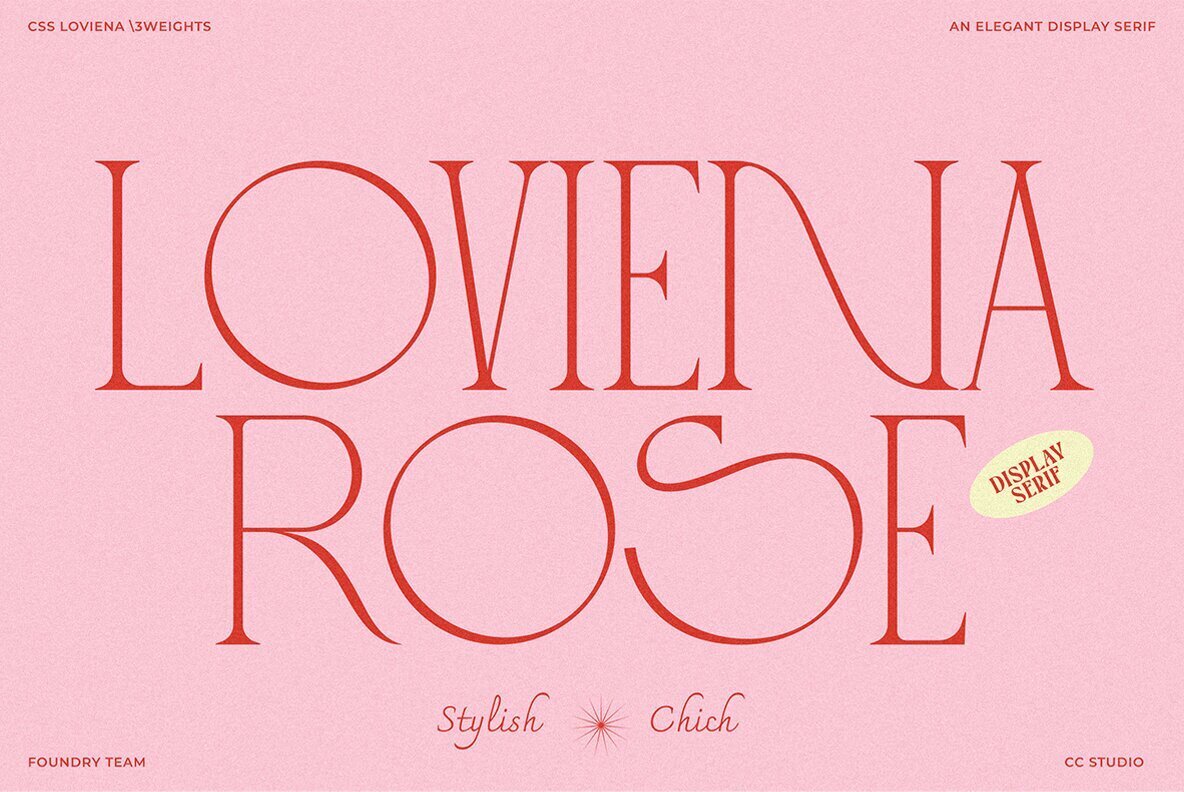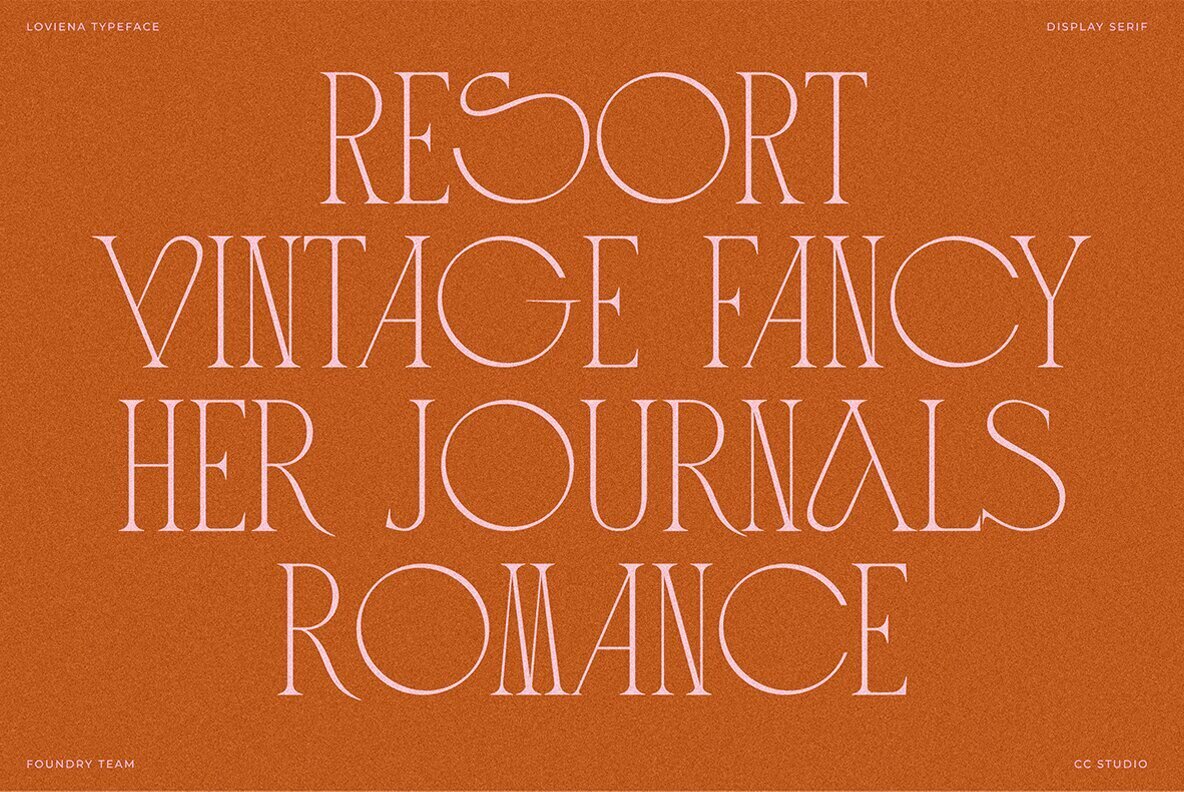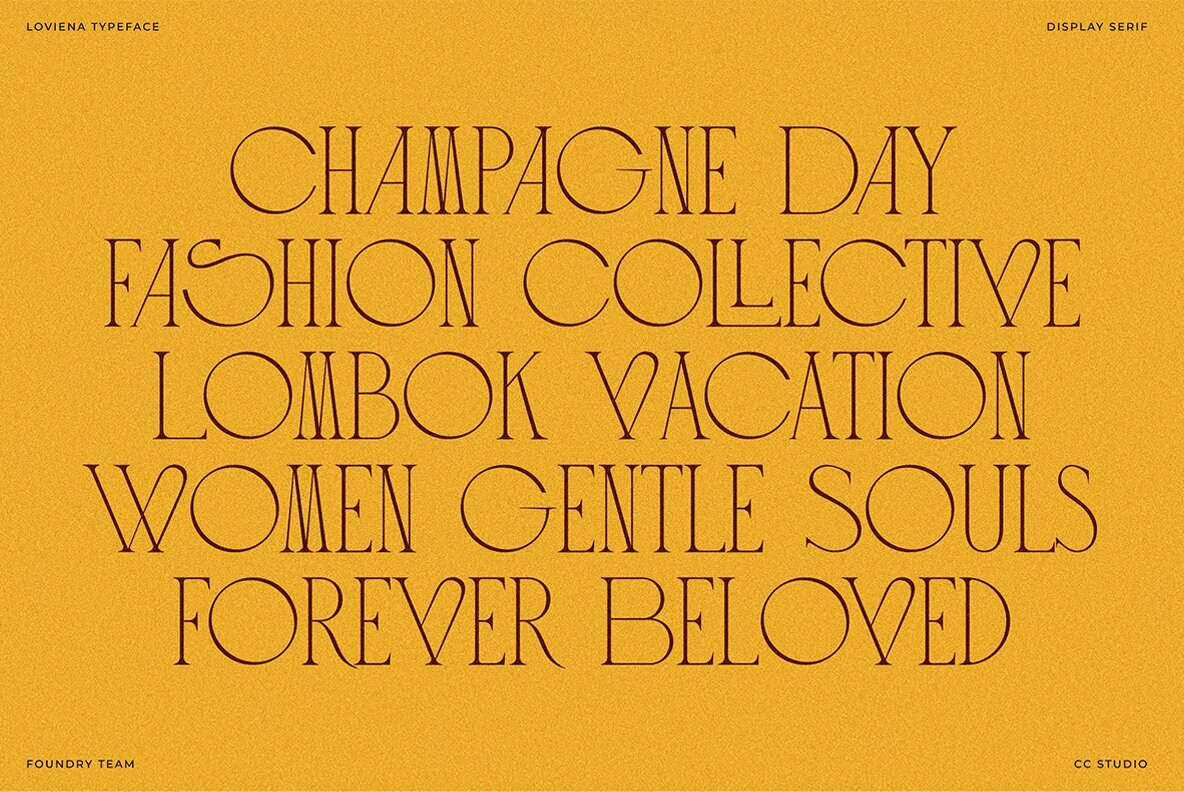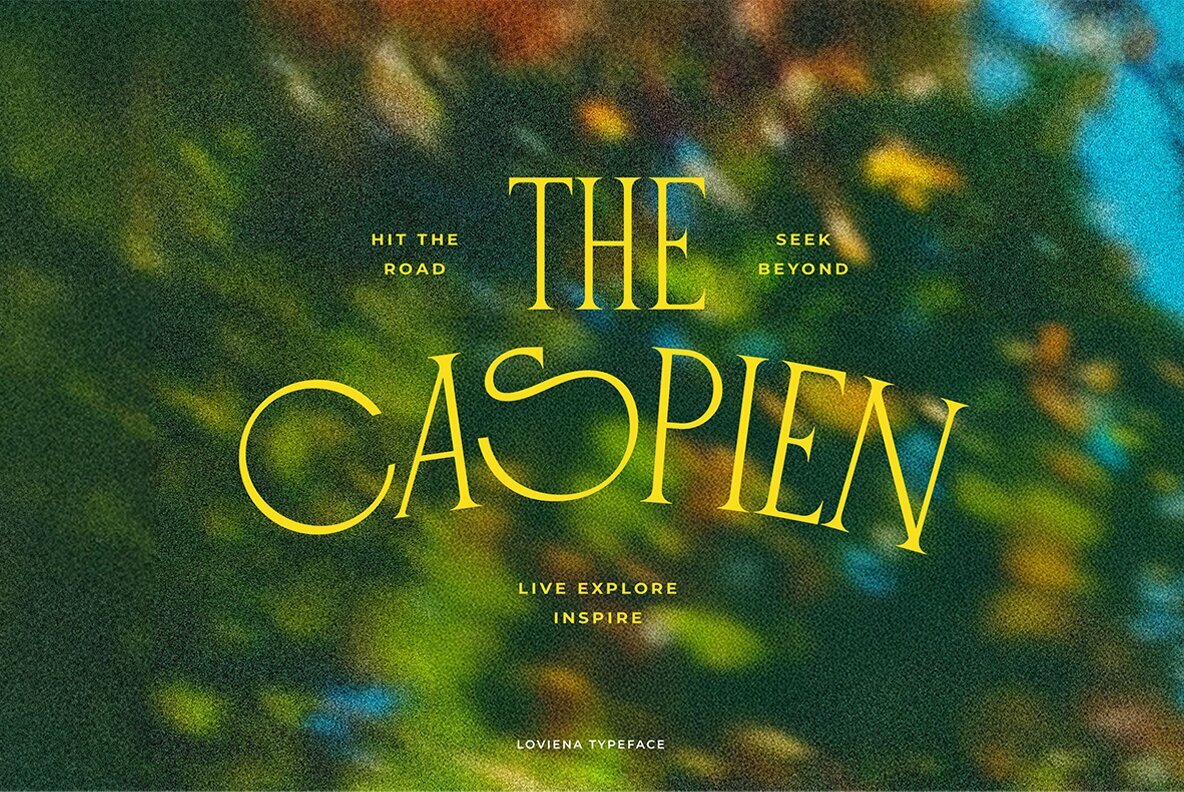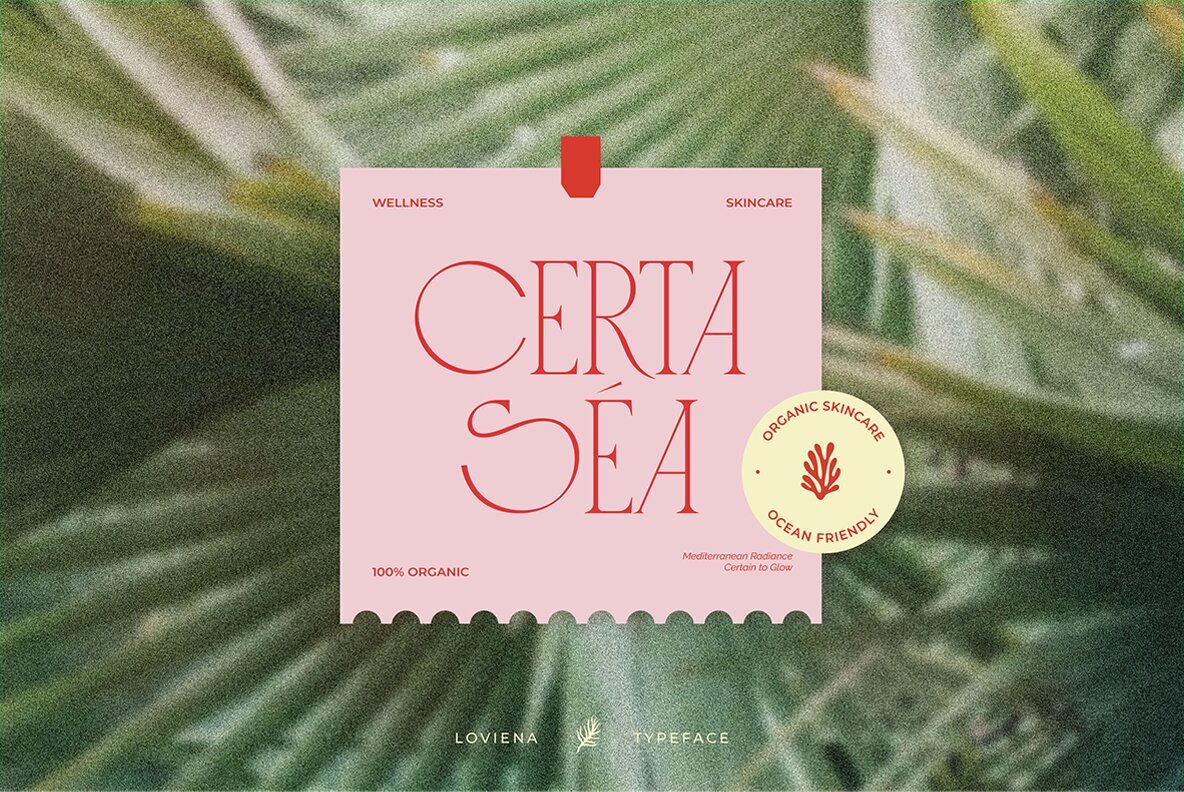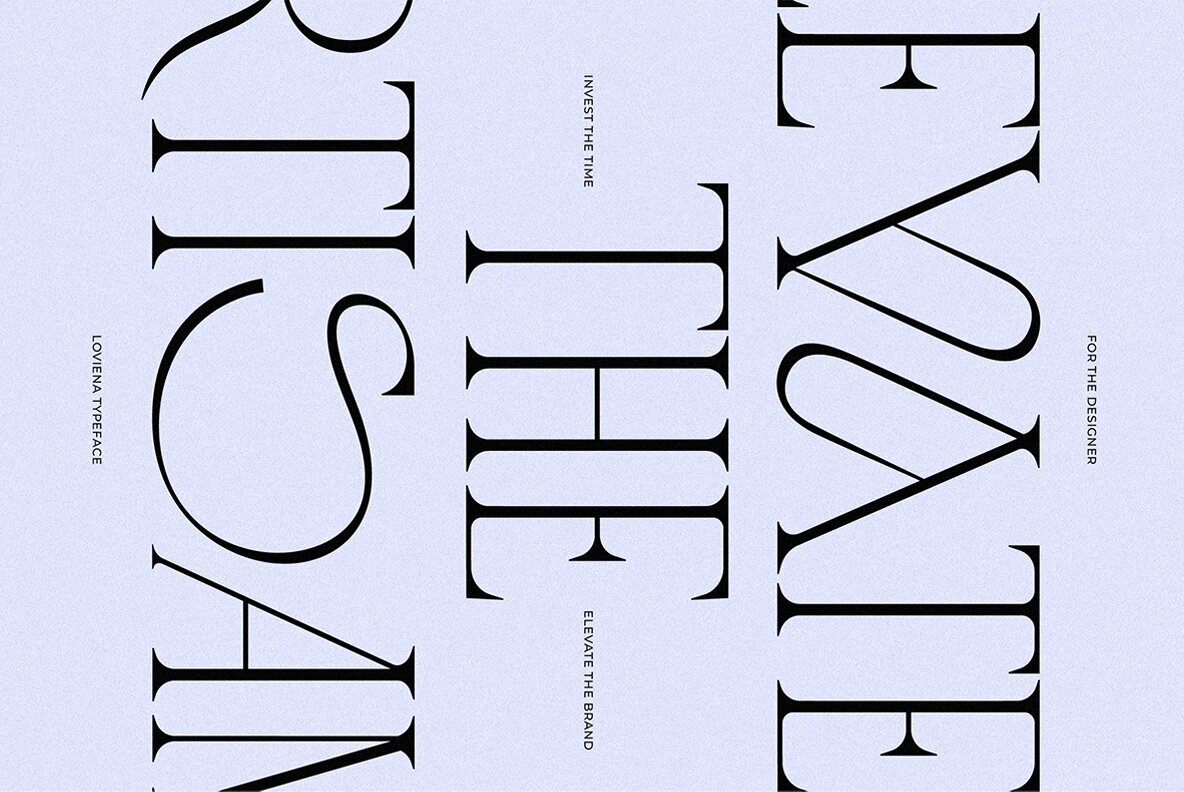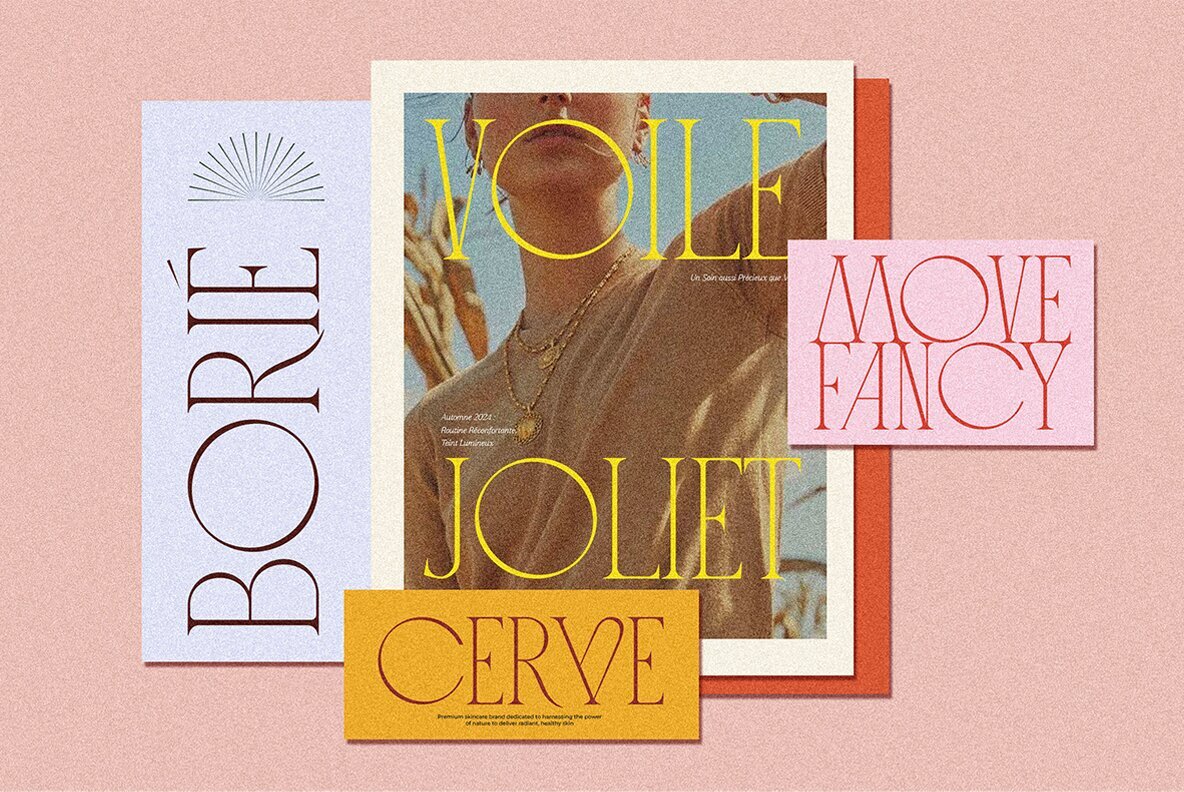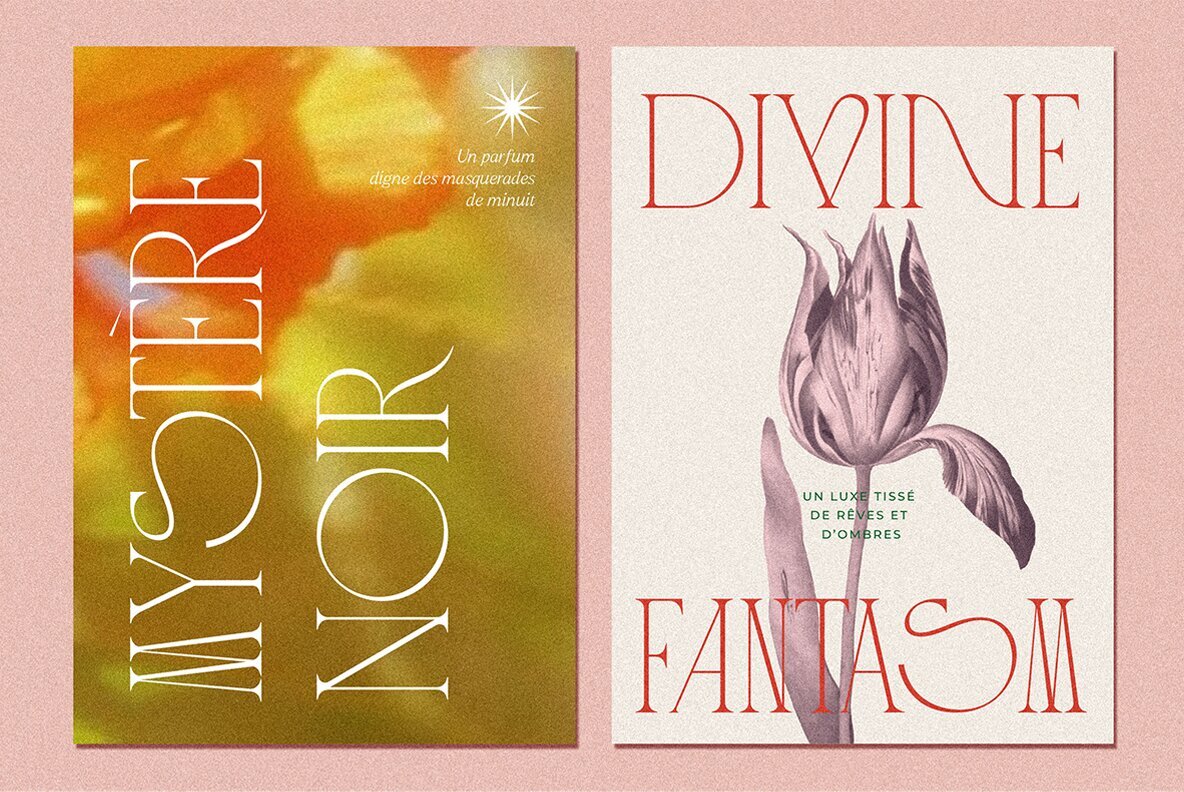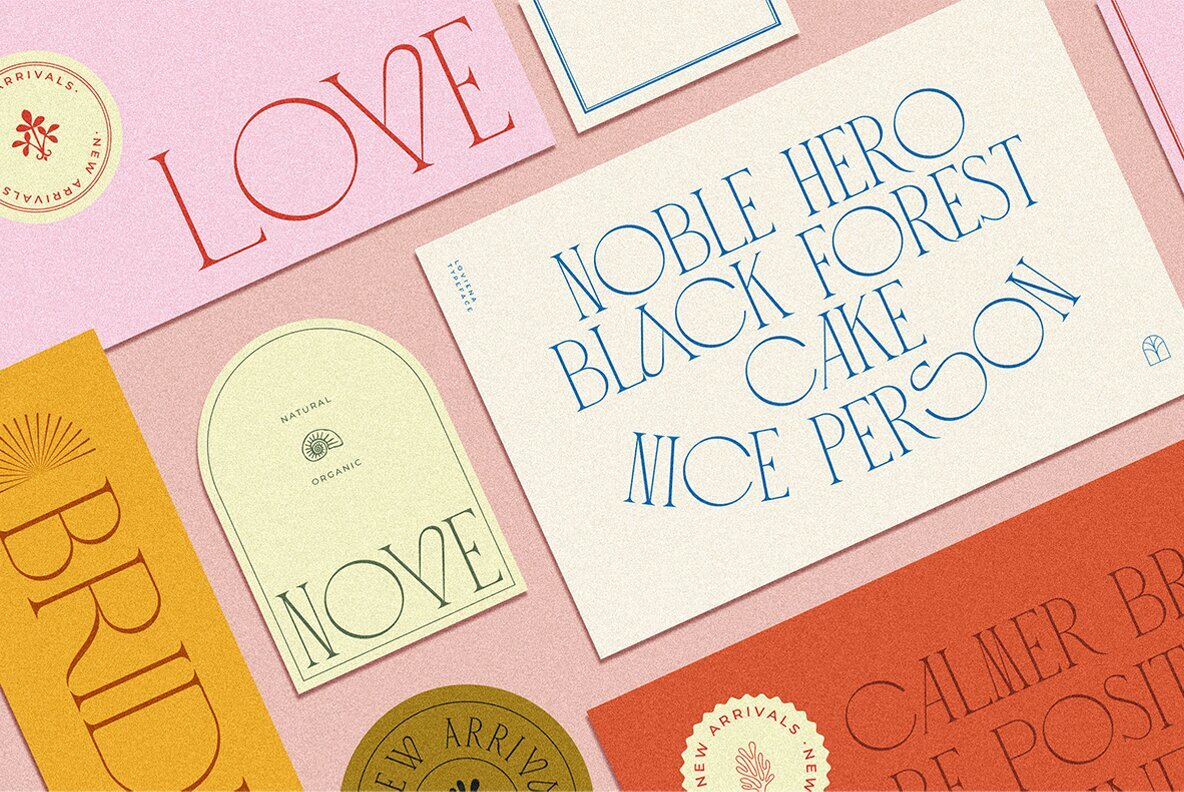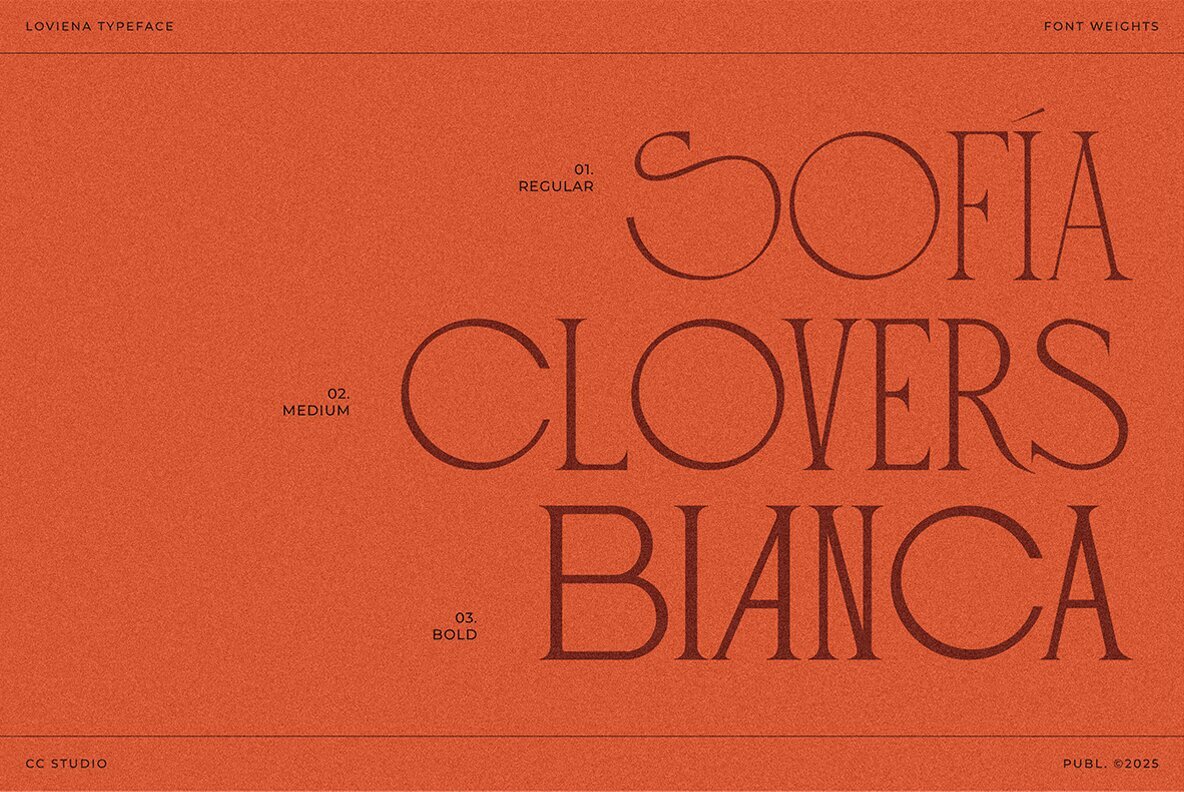
Loviena Rose Font
Introducing Loviena Rose Serif, a font that embodies elegance with a playful twist. Designed in an all-caps style, Loviena Rose offers a refined balance of classic sophistication and modern charm, evoking the luxurious feel of a tropical summer getaway. With its array of stylish alternates and ligatures, this versatile typeface adds a touch of uniqueness and creativity to headlines, titles, logos, and layouts. Available in three weights—Regular, Semibold, and Bold—Loviena Rose is perfect for designers seeking a timeless yet fun option to elevate their projects with a fresh, feminine flair. Features: